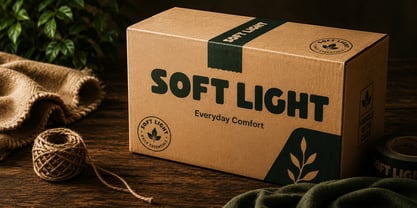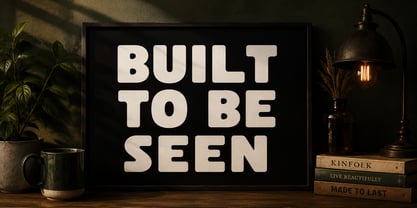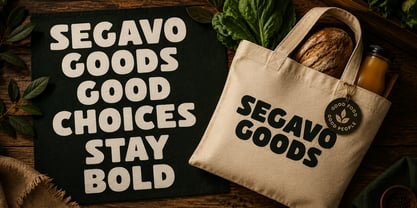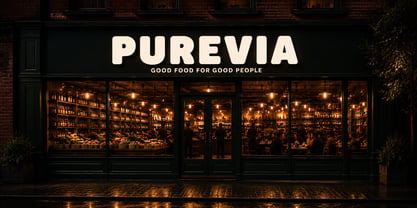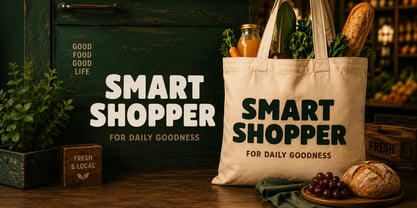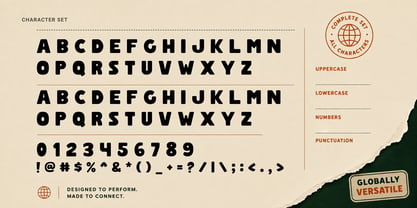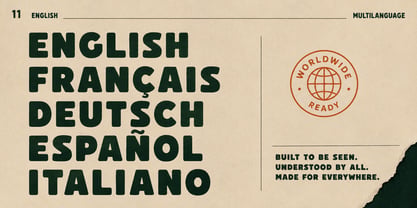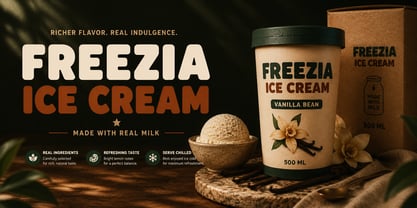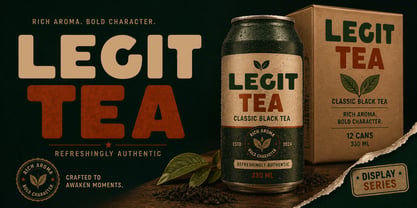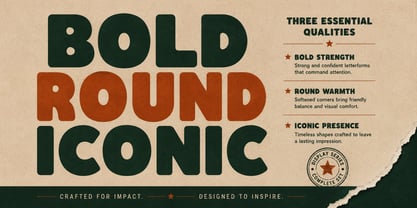
Segavo
La familia tipográfica Segavo fue diseñada por Jony Suharsono y publicada por Solutype. Segavo contiene 1 estilos. Más información sobre esta familia
SEGAVO is a bold rounded display font designed to deliver maximum impact with a clean, friendly, and unforgettable personality. Built with thick geometric forms, smooth curves, and strong visual presence, SEGAVO is perfect for brands that want to appear confident, approachable, and highly recognizable.
Its chunky construction and soft edges create a modern retro aesthetic that feels playful yet professional. Whether used for logos, packaging, product branding, advertising campaigns, posters, merchandise, or social media content, SEGAVO stands out instantly while maintaining excellent readability.
Created for designers who need a strong display typeface with character, SEGAVO brings energy, warmth, and boldness to every project.
Perfect For
• Logo Design
• Branding Projects
• Packaging Design
• Product Labels
• Food & Beverage Branding
• Posters
• Headlines
• Advertising
• Social Media Graphics
• Merchandise
• Children's Branding
• Retail Design
• Editorial Layouts
• Signage
• Web Banners
• YouTube Thumbnails
Font Personality
• Bold
• Rounded
• Friendly
• Playful
• Modern
• Confident
• Expressive
• Eye-Catching
• Commercial
• Clean
Features
• Uppercase Characters
• Numerals & Punctuation
• Multilingual Support